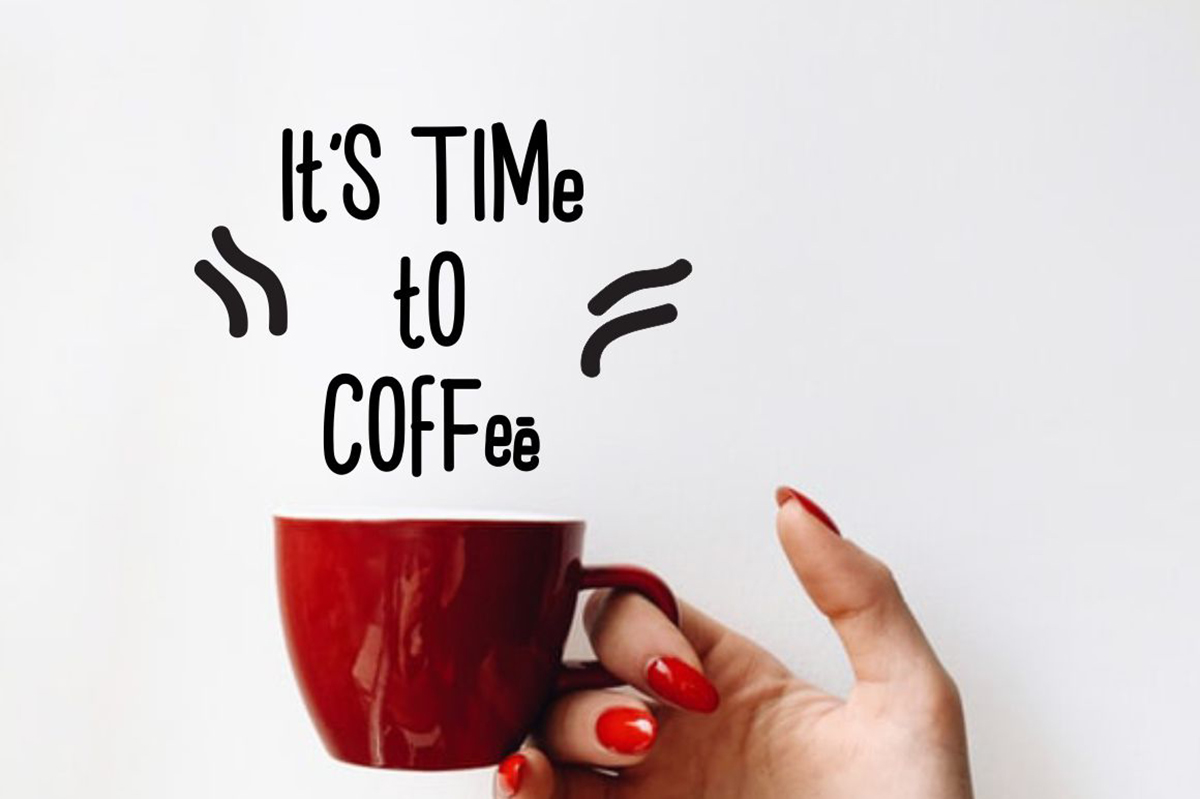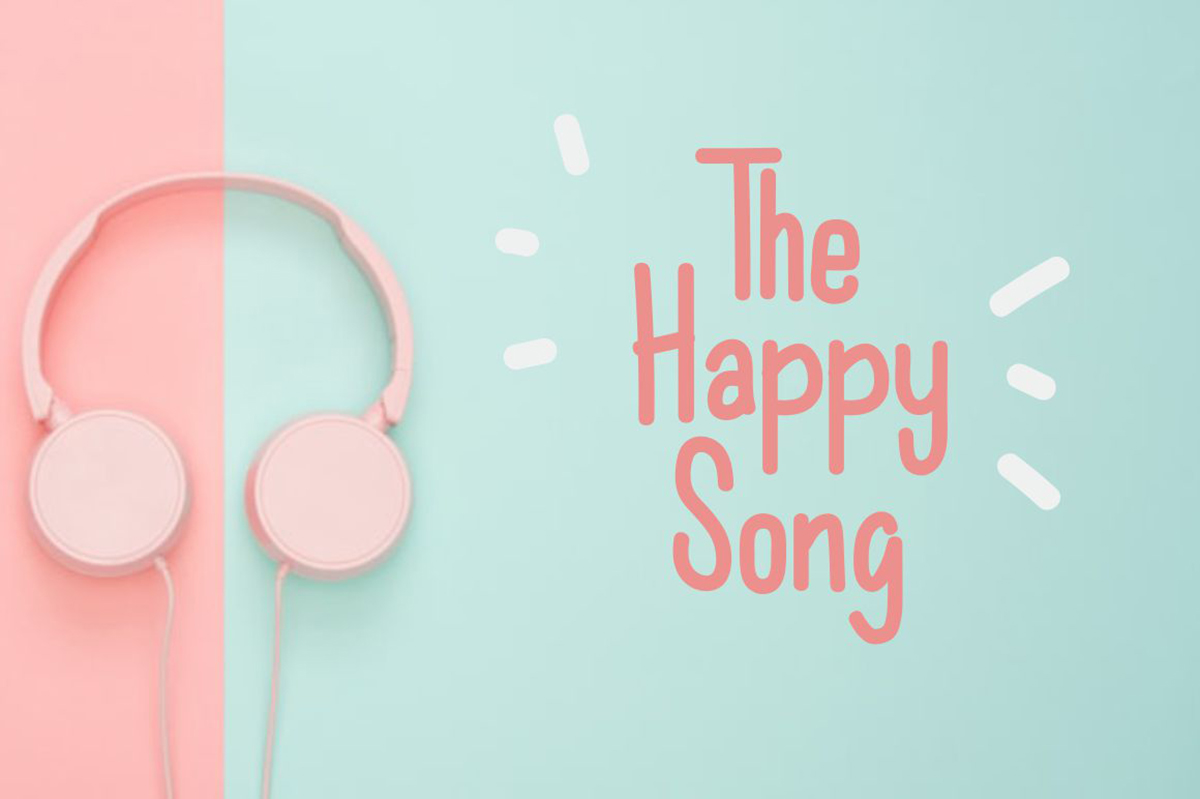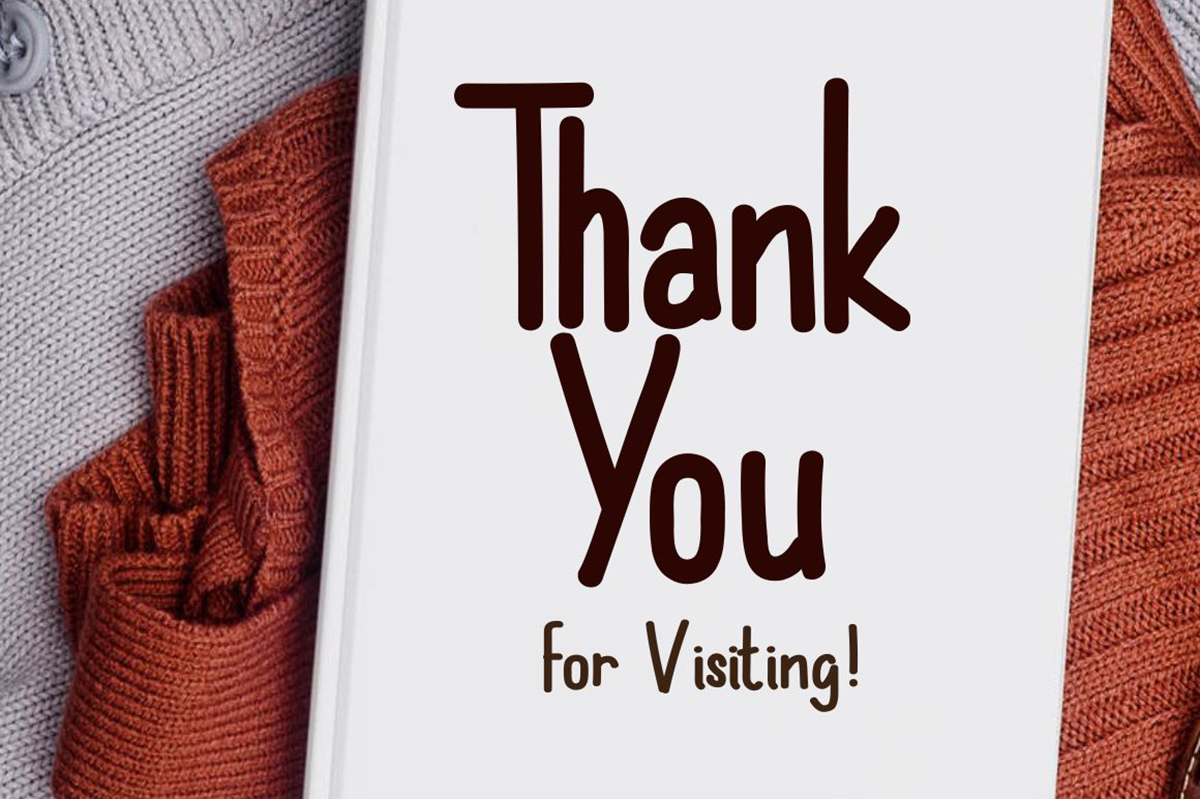
The Book Free Font
The Book Free Font is a cool and cheerful display font suitable for comics, posters, banners, and for other graphic design purposes. The making is inspired by the freedom, beauty, and modern tastes of this era. This free typeface was designed by talented Bara Project. If you like it don’t forget to check out the full version.